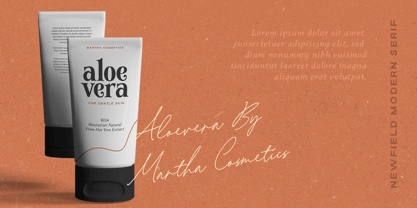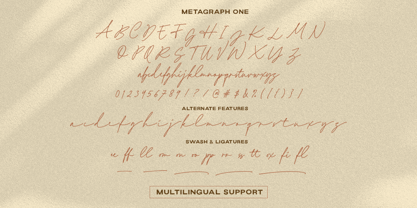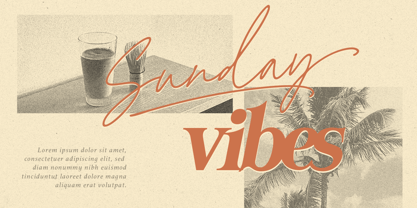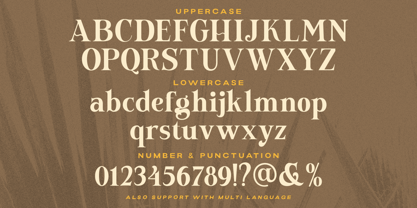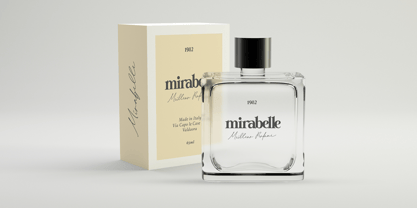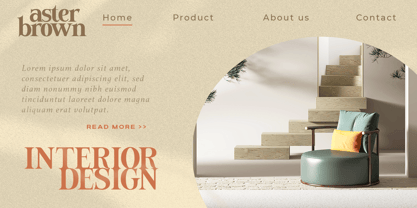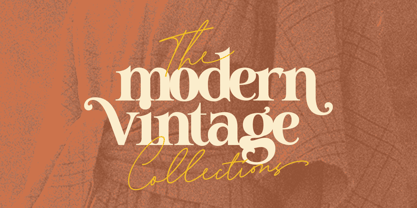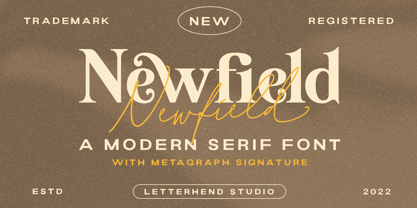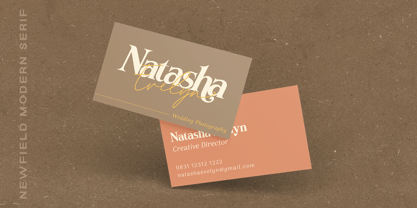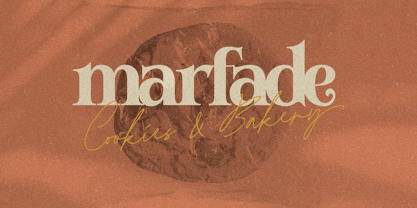
Newfield
Die Schriftfamilie Newfield wurde von Hendry Juanda entworfen und von Letterhend veröffentlicht. Newfield enthält 2 Stile und Familienpaketoptionen. Mehr über diese Familie
Newfield is a modern serif font with modern and elegant feel. It comes with Metagraph signature script. The serif combined with the natural script with signature style are the perfect match for you who needs a typeface for headline, logo, and the other various formal forms such as invitations, labels, logos, magazines, books, stationery, novels, labels or any type of advertising purpose. Features : Uppercase & lowercase Numbers and punctuation Ligatures & Alternates Multilingual PUA encoded